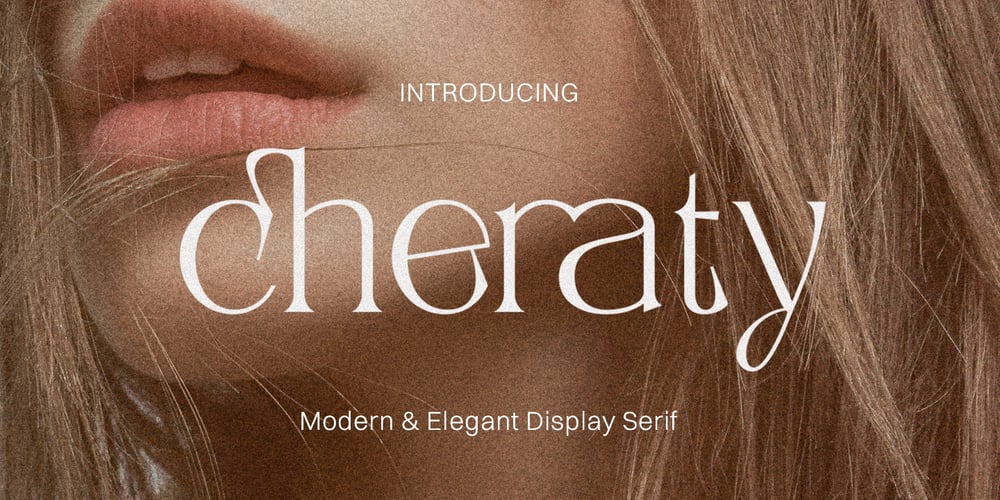
Cheraty Font Family was designed by Fajarisha Phonna and published by Skypia. Cheraty contains 3 styles and family package options. Cheraty – a sophisticated, charming serif with a fashionable touch. Specially designed for luxury, elegant, feminine projects, Cheraty is perfectly suitable for creating modern, chic design such as logos, packaging, editorial, and more. What is included: Cheraty Regular Cheraty Outline Cheraty Italic Features All Uppercase and Lowercase Number & Symbol Supported Languages Alternates and Ligatures PUA Encoded Thank you,Skypia